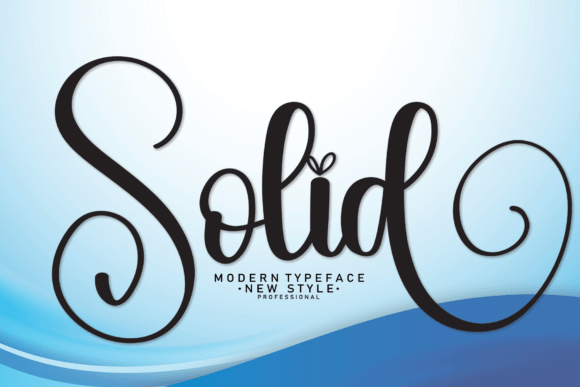
Introducing Solid Font, the exquisite script font that will elevate your designs to new heights. Crafted by the talented andikastudio, this font family exudes elegance and sophistication, making it the perfect choice for creating captivating cursive signatures that leave a lasting impression.
With its contemporary atmosphere and impeccable form, Solid Font is inspired by timeless classic calligraphy. Its lines flow effortlessly, striking a perfect balance between thin and thick strokes. This beautiful variation ensures that your words will be legible and impactful, adding a touch of grace and refinement to any project.
Whether you're a seasoned designer or just starting out, Solid Font is incredibly user-friendly. Its intuitive interface makes it easy to customize the font to your liking, allowing you to create truly unique and personalized designs.